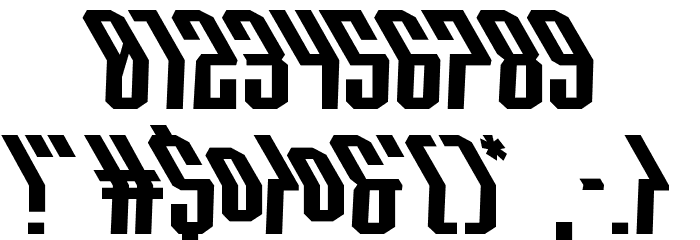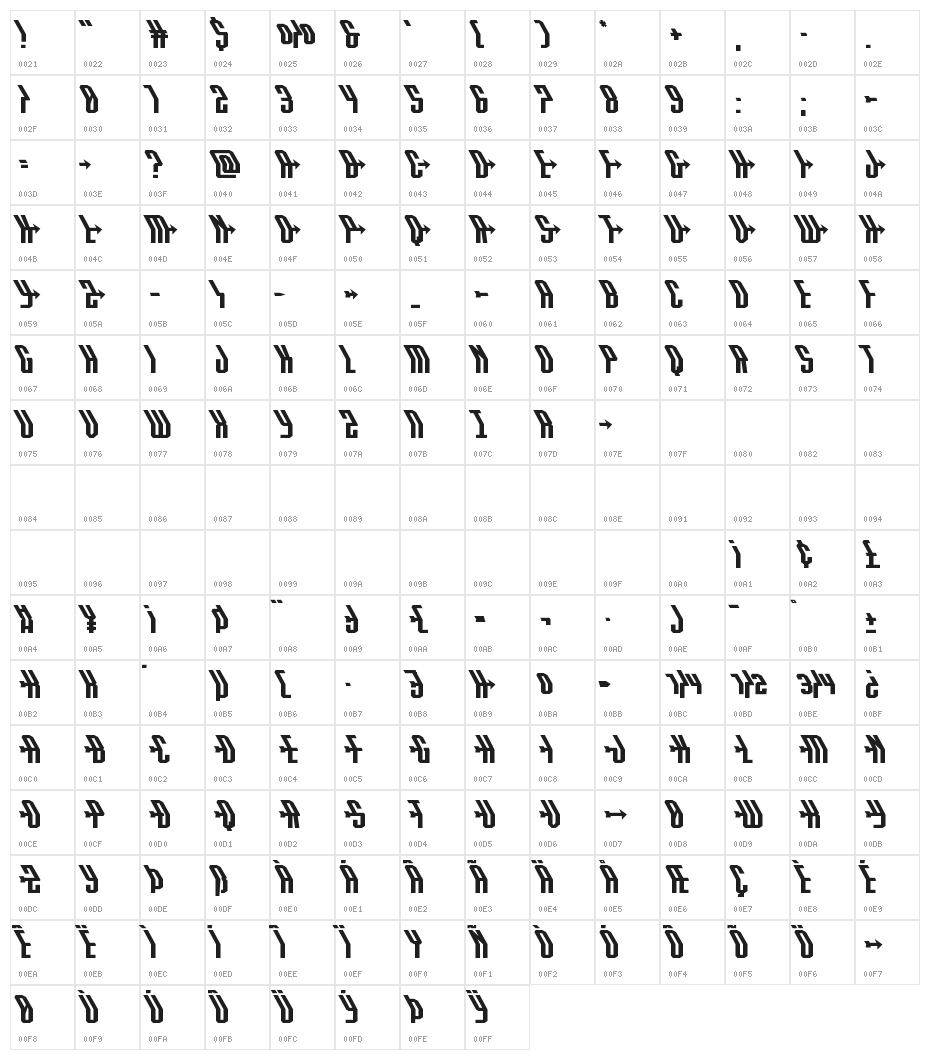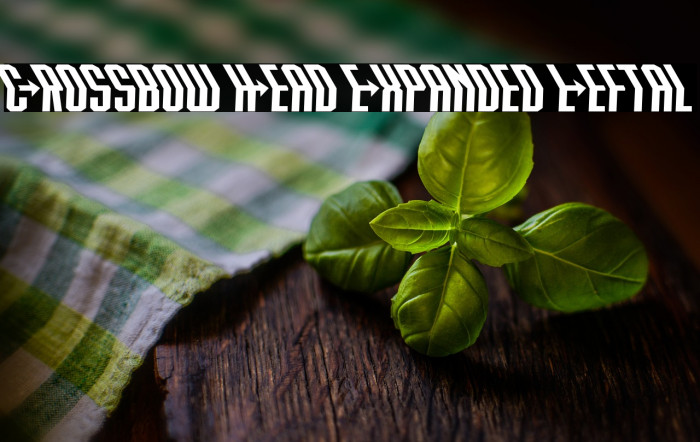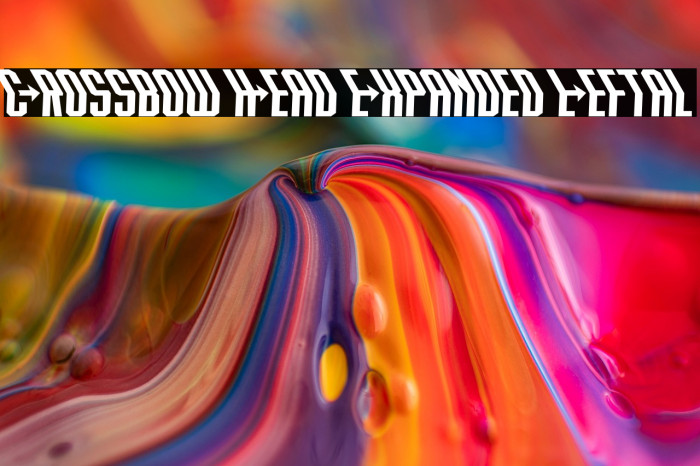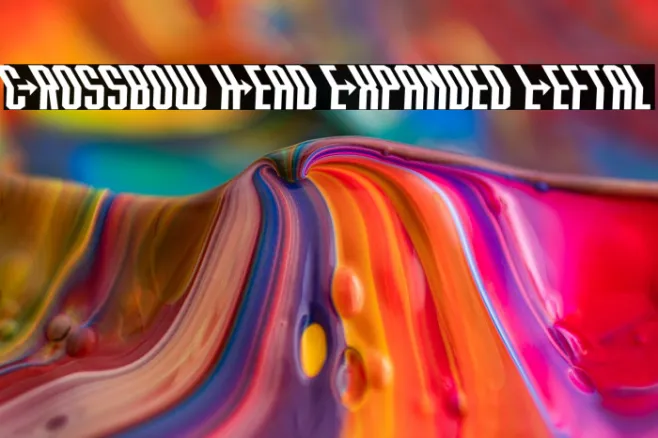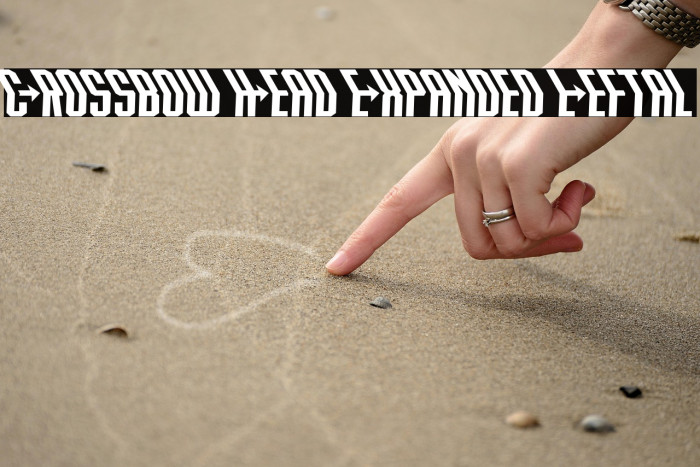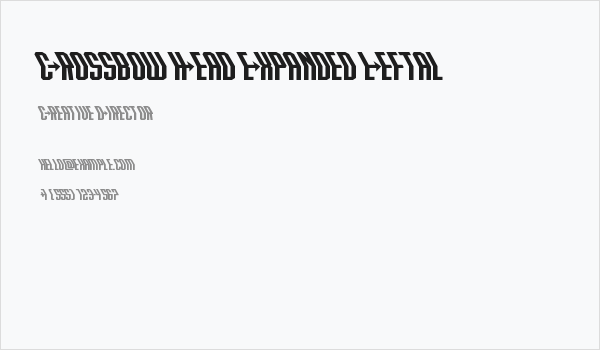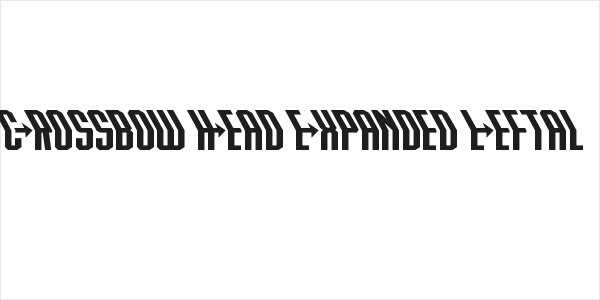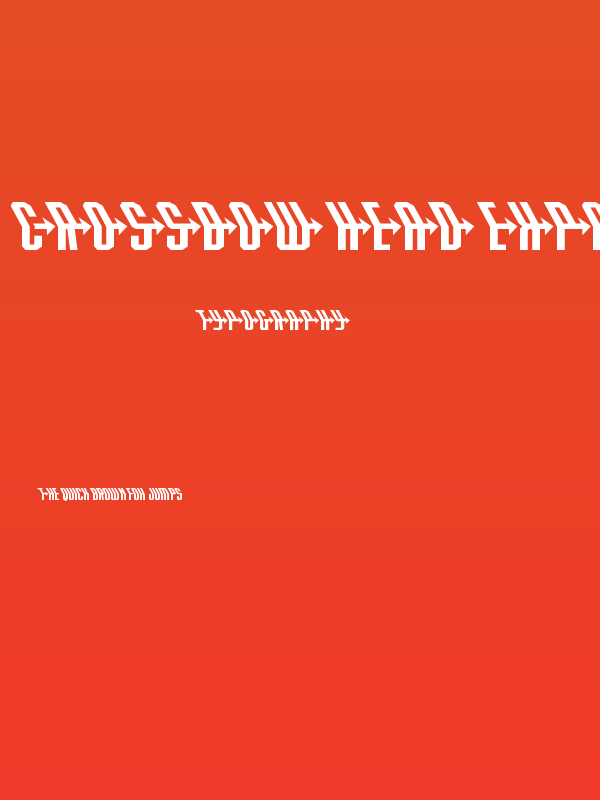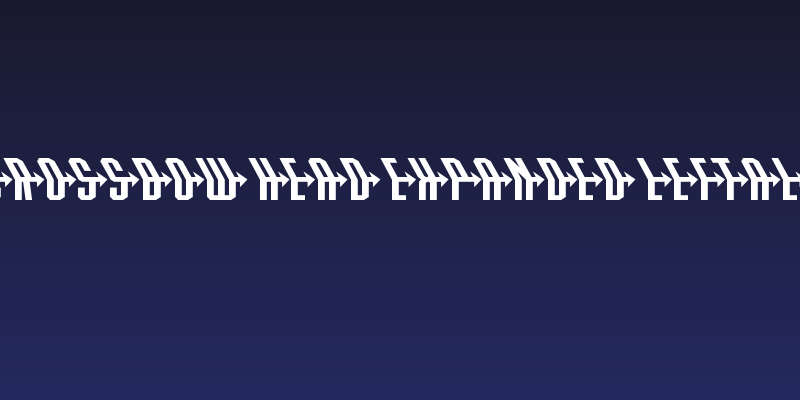
Crossbow Head Expanded Leftal Font
Crossbow Head Expanded Leftal Description
This font features a bold and angular design with a distinct geometric style. The characters are sharply defined with a futuristic and edgy appearance, making it stand out in any design. The uppercase letters are particularly striking, with a consistent width and height that create a uniform look. The numbers and special characters maintain the same boldness, ensuring a cohesive appearance across all elements. This font's unique style is perfect for projects that require a modern and dynamic aesthetic.
| Proposed Projects | Ideal for branding, posters, video game graphics, and any project needing a modern, edgy look. |